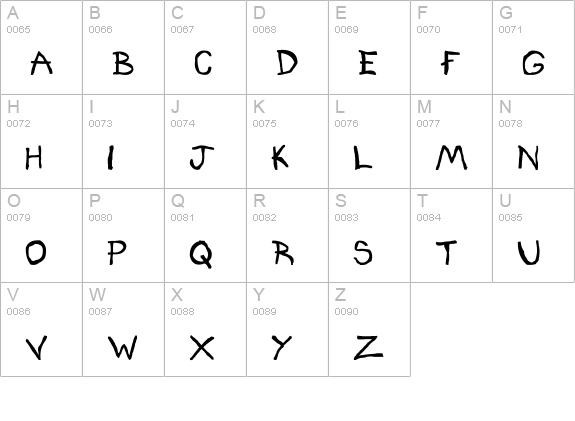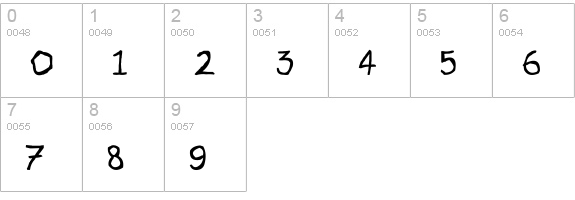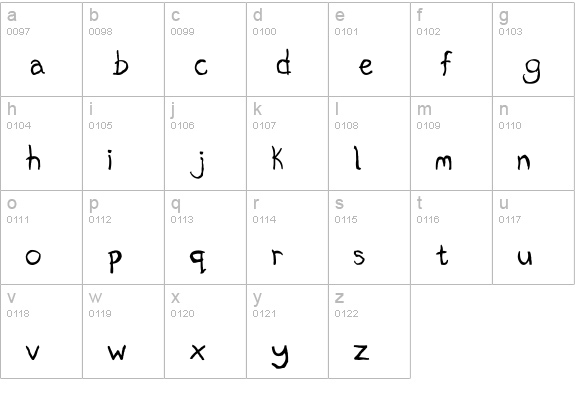
Don't Mix Yer Drinks Font Details
Don't Mix Yer Drinks font is a playful and quirky typeface that adds a touch of whimsy to any design project. Its unique and irregular letterforms give off a fun and lighthearted vibe, making it perfect for projects that require a youthful and energetic feel. This font is versatile and can be used for a variety of purposes, from branding to social media graphics to packaging design. The Don't Mix Yer Drinks font is freely available to download at FontsMarket.com, making it accessible to designers of all levels. Whether you're working on a personal project or a client's design, this font is sure to make a statement and add a pop of personality to your work. Don't Mix Yer Drinks font is a must-have in your font collection for when you need to inject some fun and creativity into your designs.